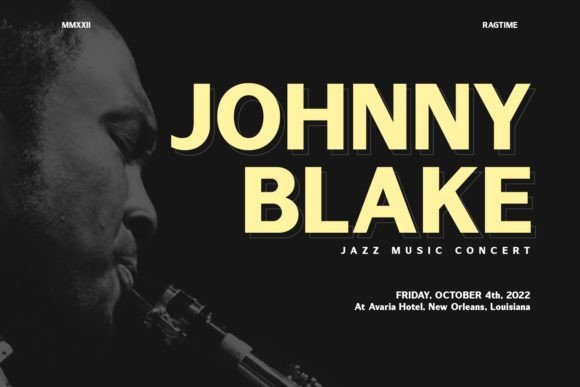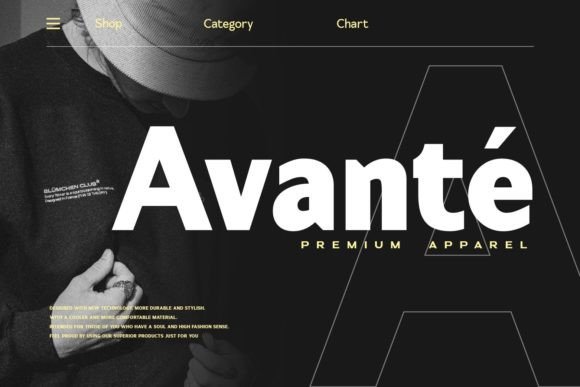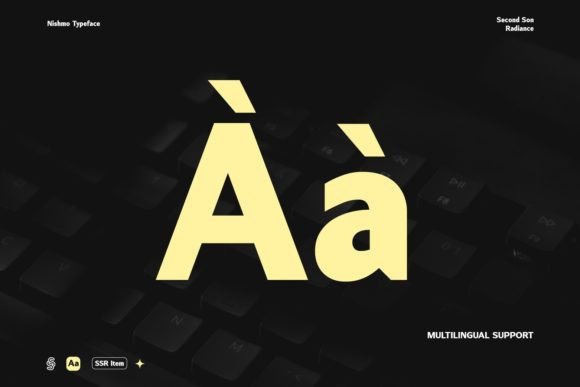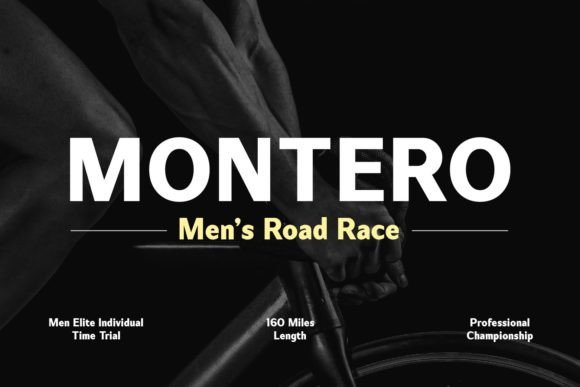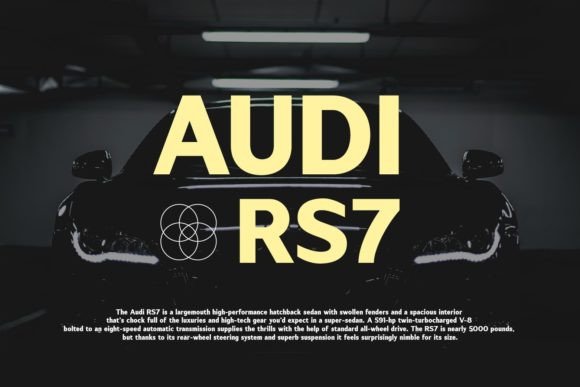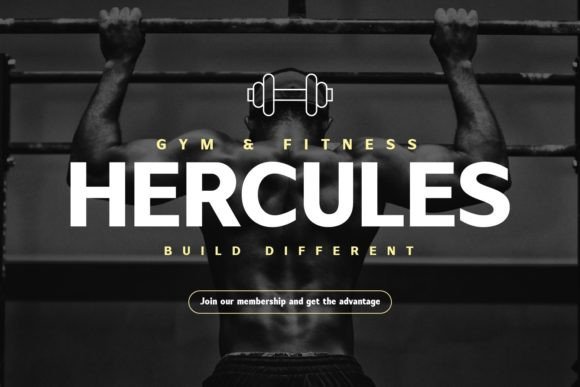
Introduction to Nishmo Font
Nishmo is a neat and bold sans serif font.
Its casual charm makes it appear wonderfully down-to-earth, readable, and, ultimately, incredibly versatile This will look outstanding in any context, whether itโs being used on busy backgrounds or as a standalone headline.